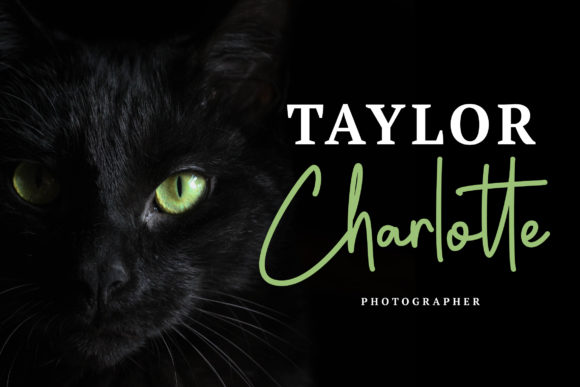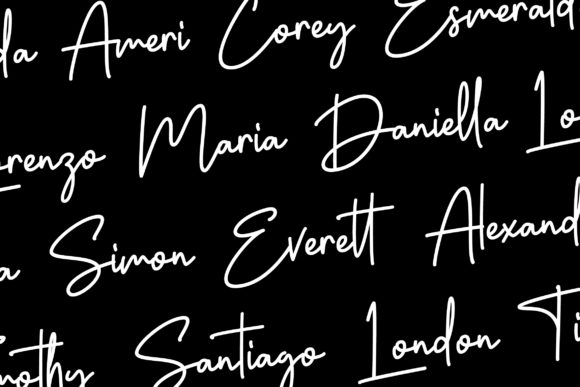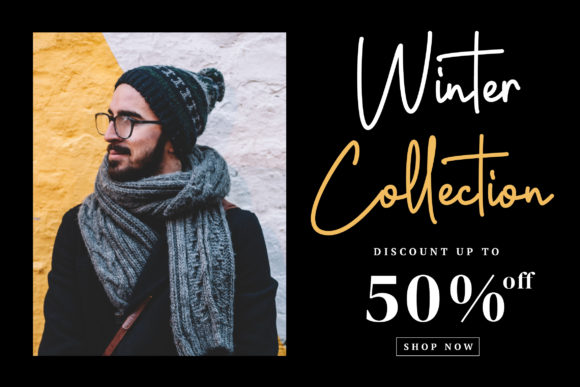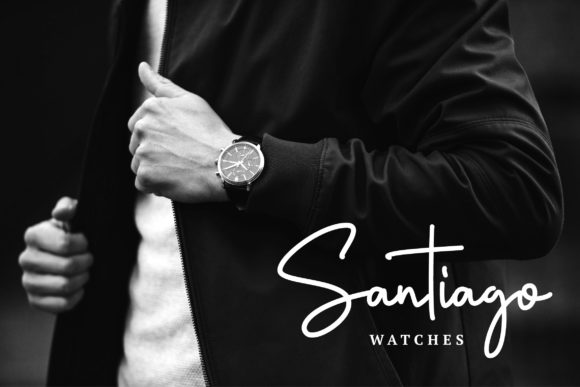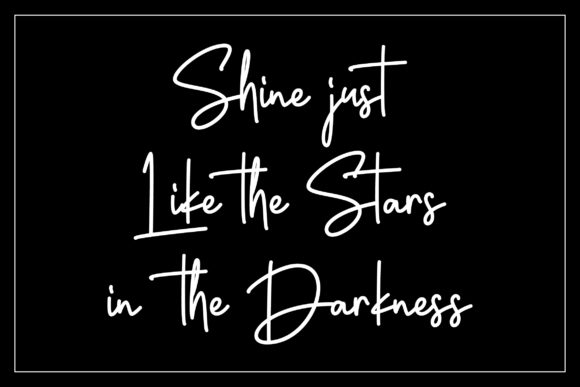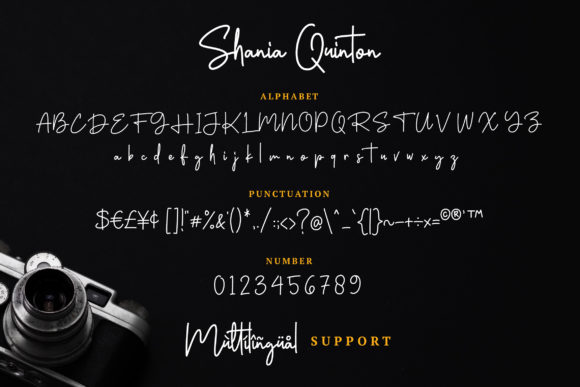
Introduction to Shania Quinton Font
Shania Quinton is a unique signature script font.
It will elevate any logo for branding, typography design, product packaging, invitation, quotes, t-shirt design, label poster, sor any other creative idea that requires a handwritten feel .
Key Features of Shania Quinton Font